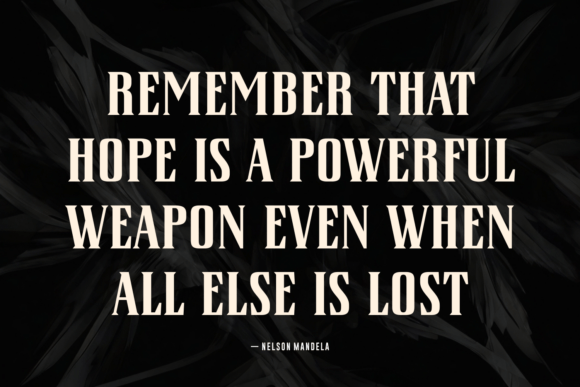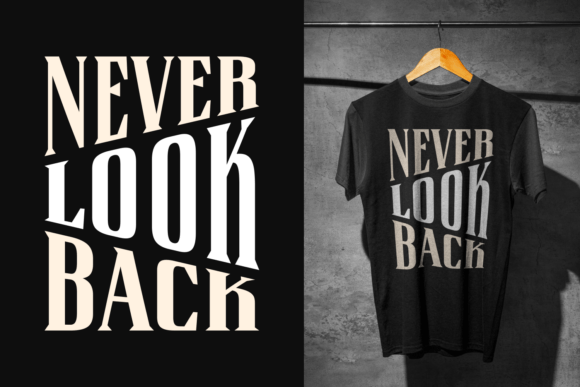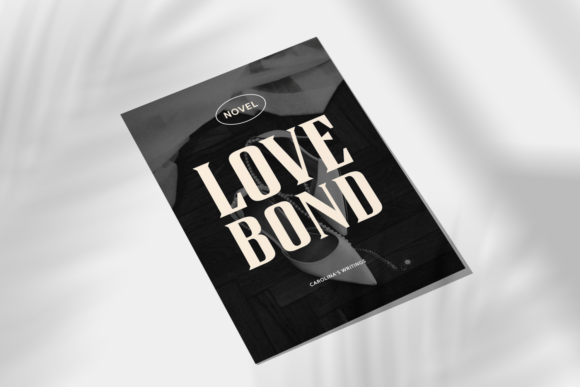
Introduction to Geshic Font
Have you ever stared at a blank design canvas, desperately searching for the perfect font to bring your creative project to life? It’s a moment we’ve all experienced, where the fate of our design hangs in the balance. For designers seeking a bold and assertive font that commands attention, look no further than the Geshic Font.
With its sharp edges, strong lines, and refined curves, Geshic Font is designed to make a statement. Ideal for headlines, logos, and editorial designs, this high-quality font combines confidence and sophistication for impactful visual appeal. Whether you’re working on a free download or a commercial project, Geshic Font is a valuable resource for designers looking to elevate their designs and leave a lasting impression.
Key Features of Geshic Font
- High-quality font design suitable for various creative projects, including graphics, logos, and digital art.
- Features a unique and elegant design, making it perfect for adding a touch of sophistication to any project.
- High-resolution font, suitable for use at large sizes and in high-resolution designs.
- Designed to be versatile and adaptable, making it an excellent choice for a wide range of design projects and applications.
- ✨ Beautiful, elegant design that’s perfect for any high-end project
The Geshic Font is perfect for use in various creative projects, including:
1. Social media graphics
2. Brochures and flyers
3. Business cards and letterheads
4. Web design and development